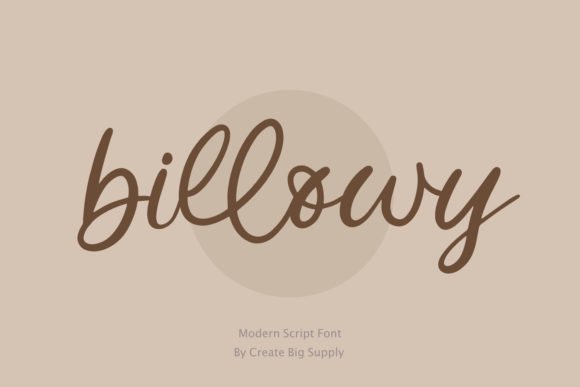
Introduction to Billowy Font
Billowy is a well balanced and delicate script font.
Featuring characters that dance along the baseline, this font will add a luxury spark to any design project that you wish to create .